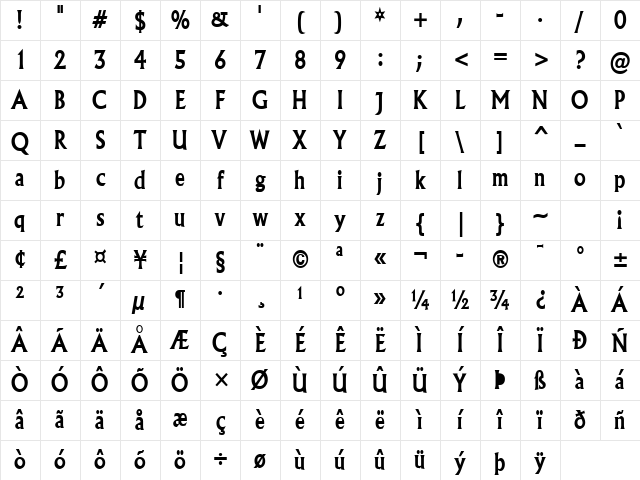
Flair-Condensed Bold
Design Context for Flair-Condensed
Flair-Condensed is a composed and adaptable typeface that performs quietly and consistently across a wide range of design contexts. Its bold stroke weight gives it real presence on the page. Its narrow stance lets it pack a punch even in space-constrained designs.